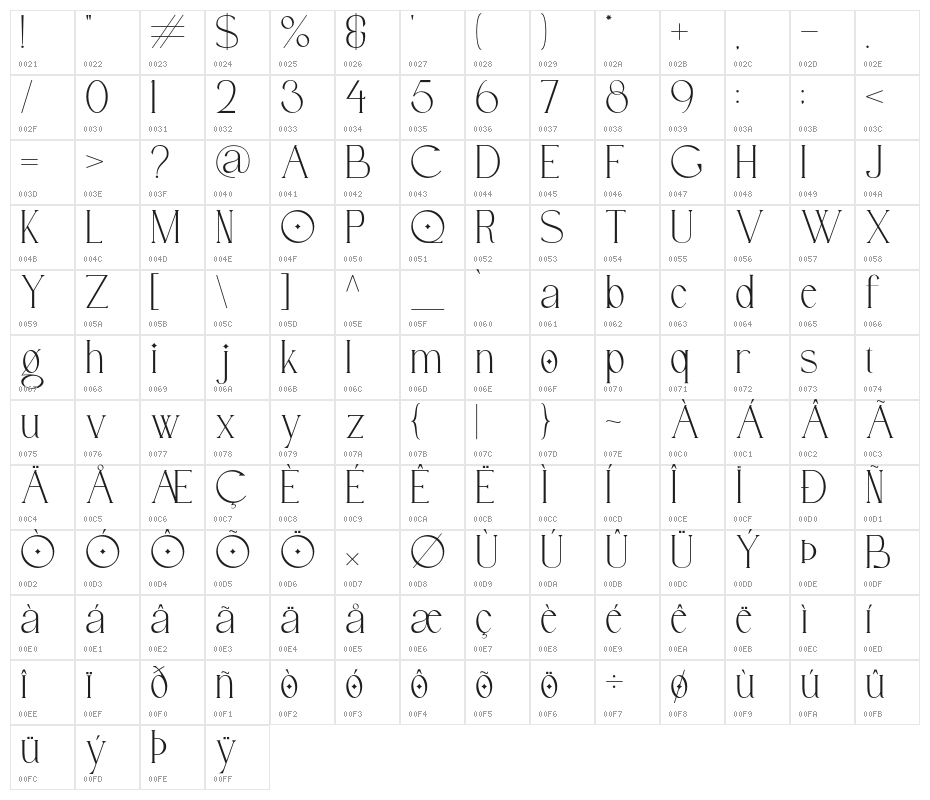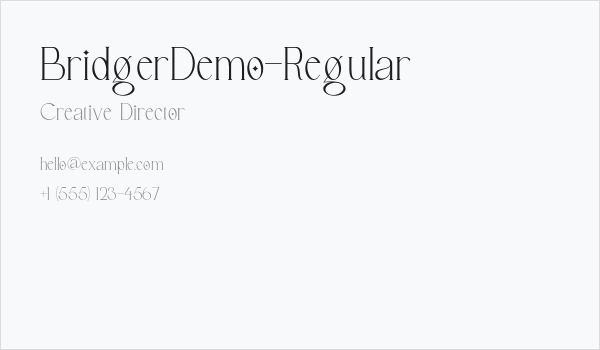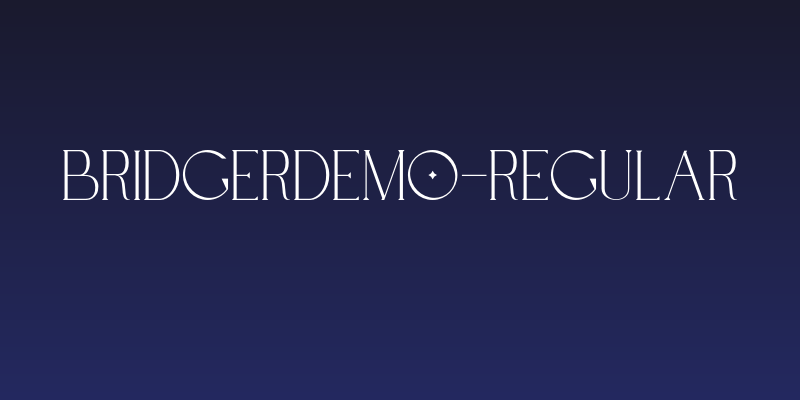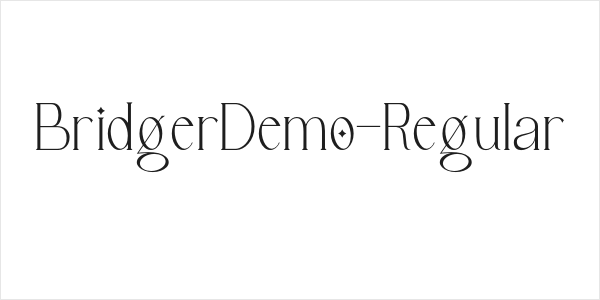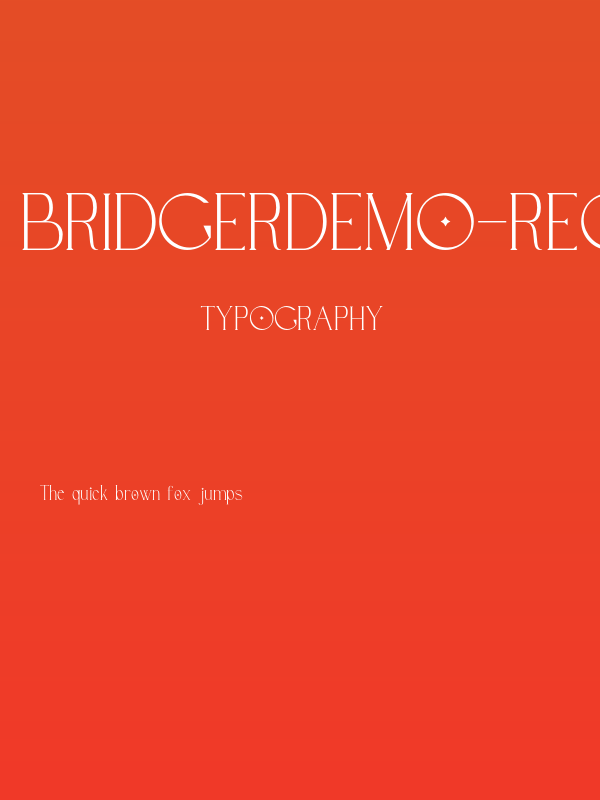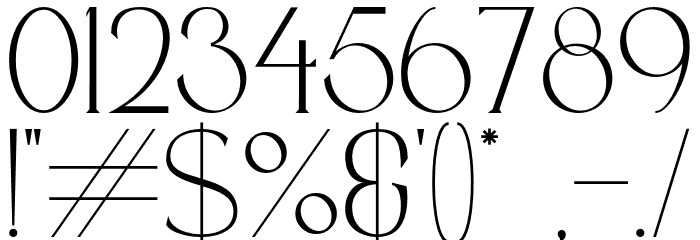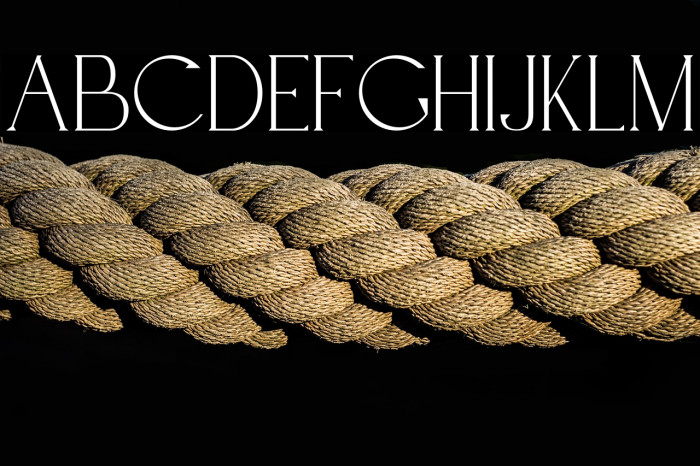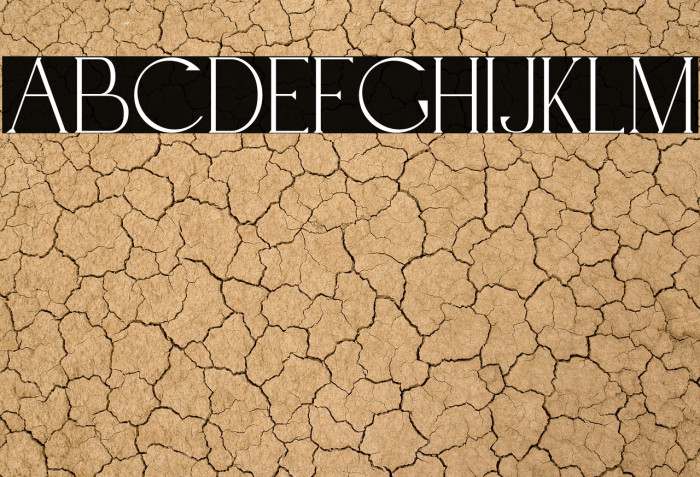
BridgerDemo-Regular Font
BridgerDemo-Regular Description
This font features a unique blend of modern and classic elements, characterized by its elegant and elongated letterforms. The uppercase letters are tall and slender, with a distinct geometric influence, while the lowercase letters maintain a more traditional serif style. The font includes a variety of special characters and numerals, each designed with a consistent aesthetic that complements the overall style. The contrast between thick and thin strokes is moderate, providing a sophisticated and readable appearance. The spacing between characters is normal, allowing for clear legibility in both display and text settings.